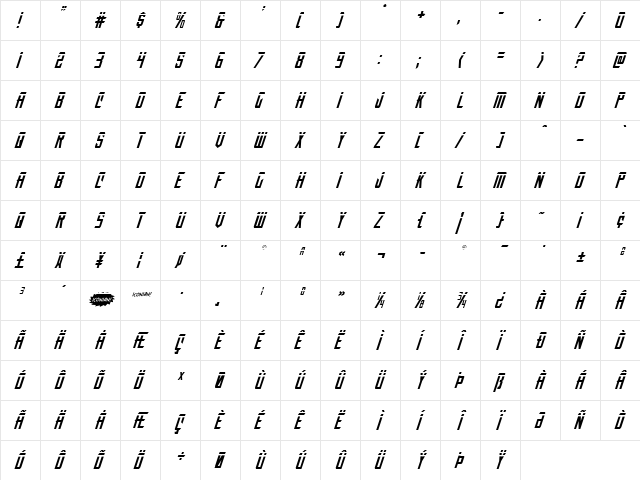
Nemesis Enforcer Laser Italic Italic
Design Context for Nemesis Enforcer Laser Italic Typeface
Nemesis Enforcer Laser Italic brings high-energy athletic personality to the page — its confident, muscular forms are built for impact. Its italic angle brings a sense of urgency and motion to the letterforms.
A natural choice for gym brands, fantasy sports, jersey lettering, and action-driven headlines.
Pro Tip: Use Nemesis Enforcer Laser Italic in all-caps headlines where its athletic energy can fully express itself. Pair with a solid, simple sans for supporting text.